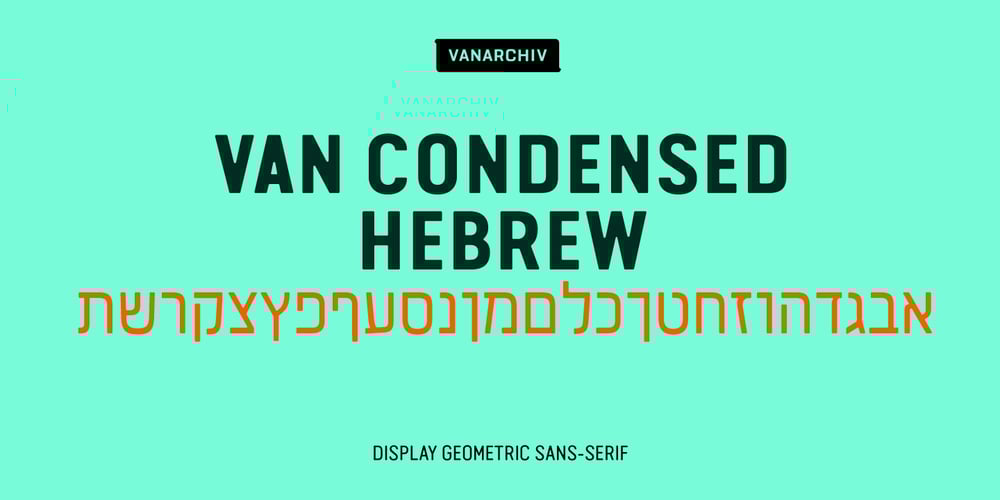
Van Condensed Hebrew Font Family was designed by Ricardo Santos and published by Vanarchiv. Van Condensed Hebrew contains 3 styles and family package options. The original version from this display sans-serif typeface was Van Condensed, published during 2004 (Latin, Greek and Cyrillic). Van Condensed Hebrew is the last script update, where the Hebrew characters follow the same design approach from the Latin characters (geometric structure, round corners). The only big difference between the Latin and Hebrew characters is the contrast, Hebrew letterforms contain reverse contrast.